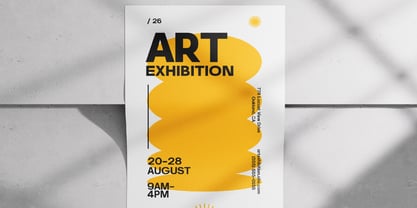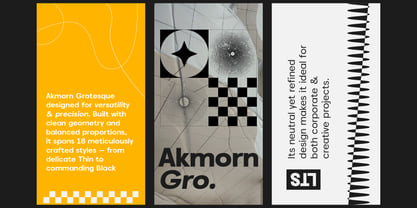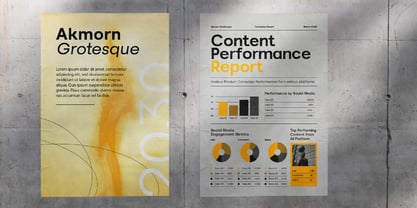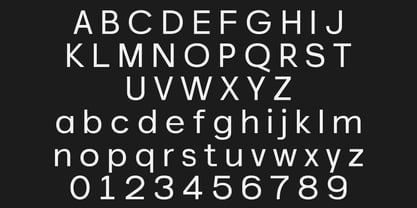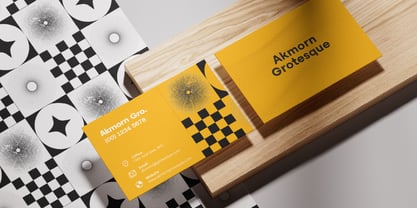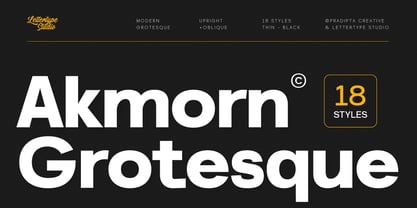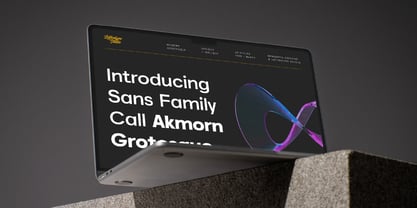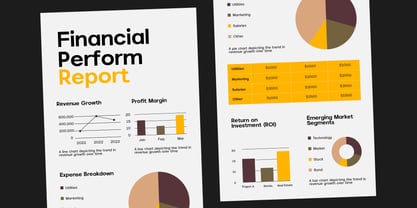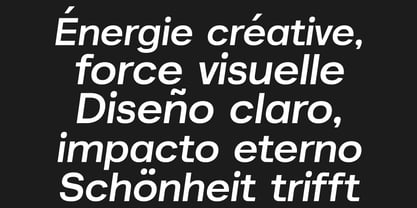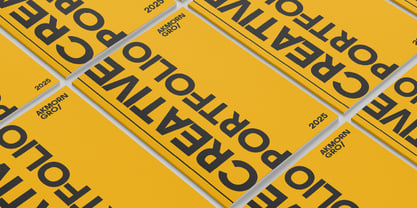
Akmorn Grotesque
by Lettertype Studio
The Akmorn Grotesque Font Family was designed by Diki Pradipta Tri Atmojo and published by Lettertype Studio. Akmorn Grotesque contains 18 styles and family package options.
Akmorn is a modern grotesque sans serif typeface designed for versatility and precision. Built with clean geometry and balanced proportions, it spans 18 meticulously crafted styles — from delicate Thin to commanding Black — each paired with an oblique for complete typographic harmony. Its neutral yet refined design makes it ideal for both corporate and creative projects.
With extensive multilingual support, advanced OpenType features, and consistent kerning, Akmorn adapts effortlessly to a variety of applications. From branding and editorial layouts to digital interfaces and large-scale signage, this font family ensures clarity, readability, and style in every context.
Akmorn Grotesque